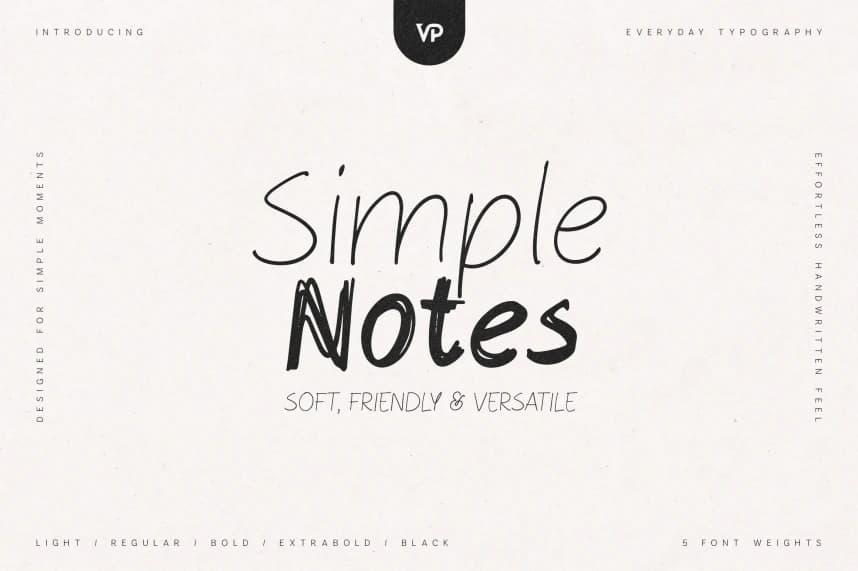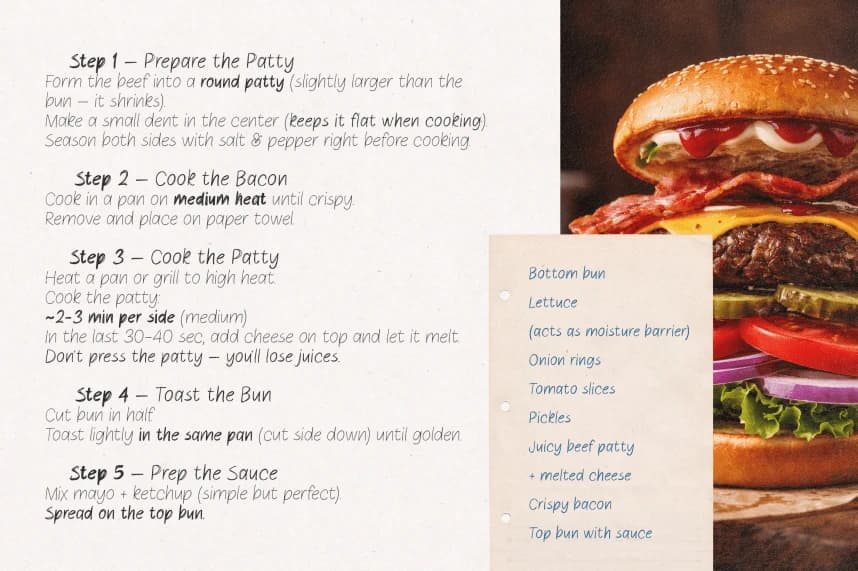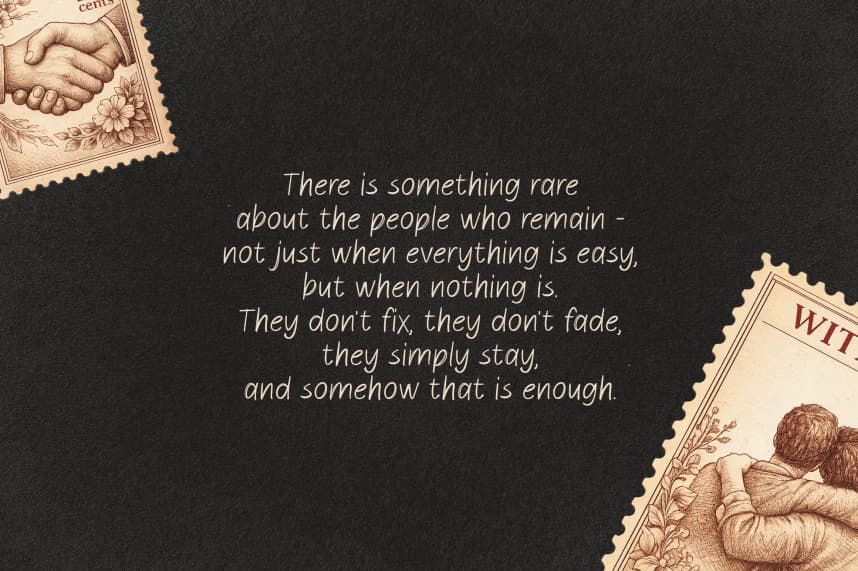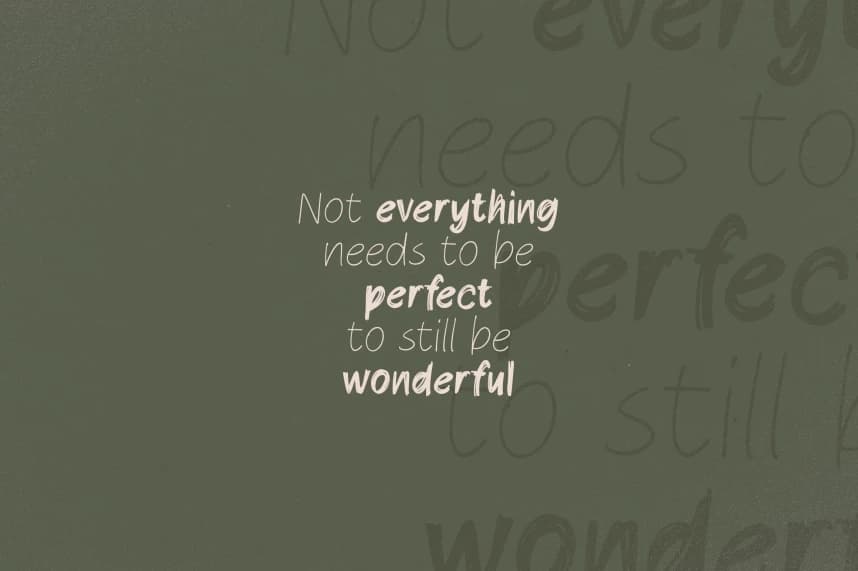
Simple Notes – Soft Handwritten Font
Simple Notes – Soft Handwritten Font. Simple Notes is a soft, friendly handwritten font designed to bring a natural and effortless feel to your designs. With its clean strokes and organic imperfections, it captures the charm of real handwriting while remaining highly legible and versatile.